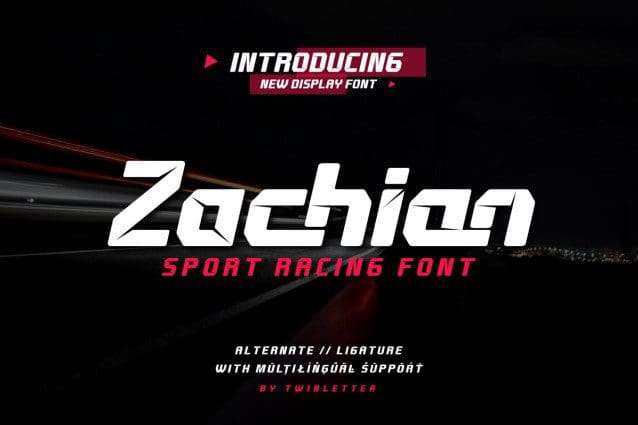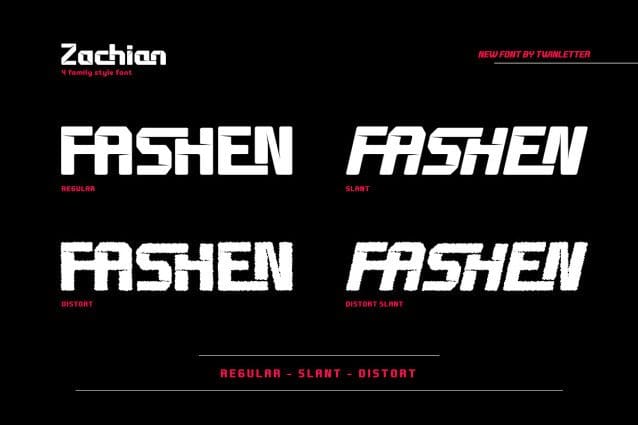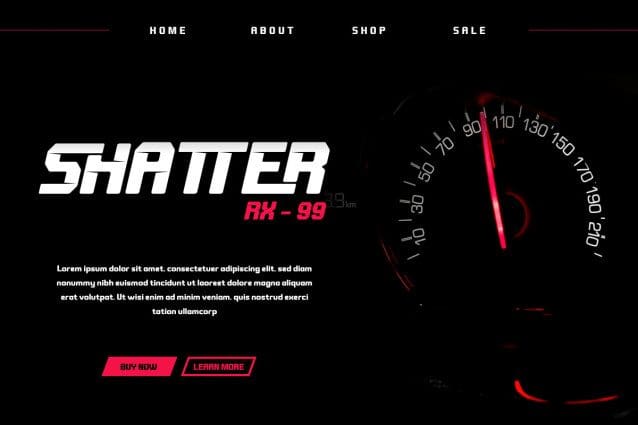
Zachian Sport Racing Font
Zachian Sport Racing Font is a typeface specifically designed to create a look that is dynamic, energetic, and related to the world of racing or extreme sports. This font combines modern elements with an aggressive touch, creating a typographic character that exudes power, speed, and excitement.
Each letter in Zachian Sport Racing Font has an aerodynamic design with sharp corners, creating a sense of movement and dynamics. This font is often used in logo designs, racing numbers, or other design elements that want to express the speed and passion of sports.
Zachian Sport Racing Font can be a great choice for projects related to the world of racing, motorsport, or extreme sports. With a dynamic and modern design, this font can provide an appearance that depicts the spirit of competition and speed which is very suitable for design purposes in the world of racing sports.